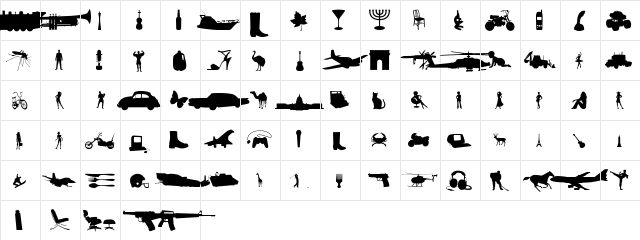
ChaletSilohuettes Medium Font Preview
ChaletSilohuettes Medium
Design Context for ChaletSilohuettes Typeface
ChaletSilohuettes is a composed and adaptable typeface that performs quietly and consistently across a wide range of design contexts.
Pro Tip: Use ChaletSilohuettes in both headline and body roles to test its range before committing to a single application.